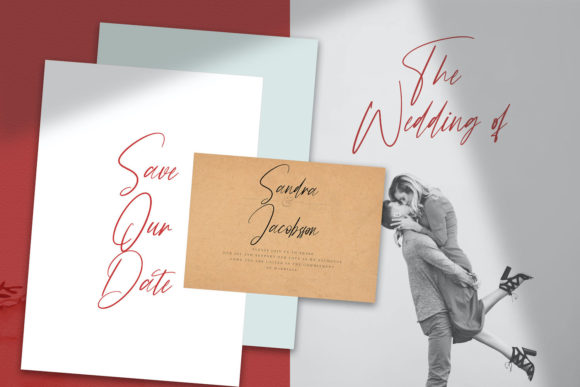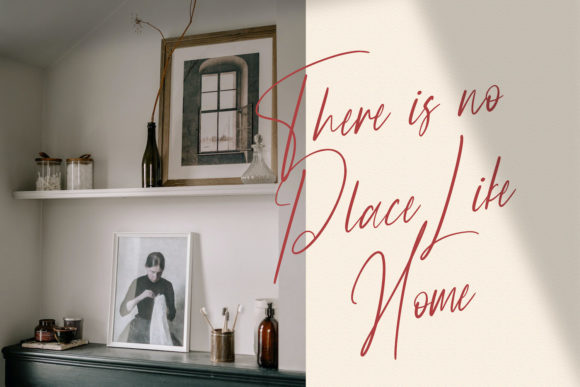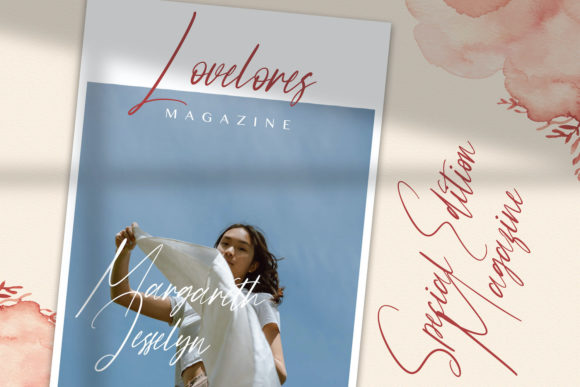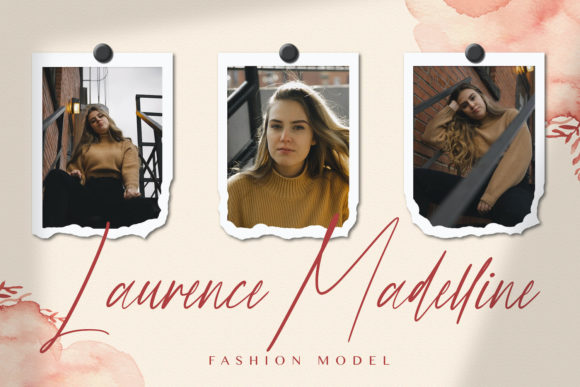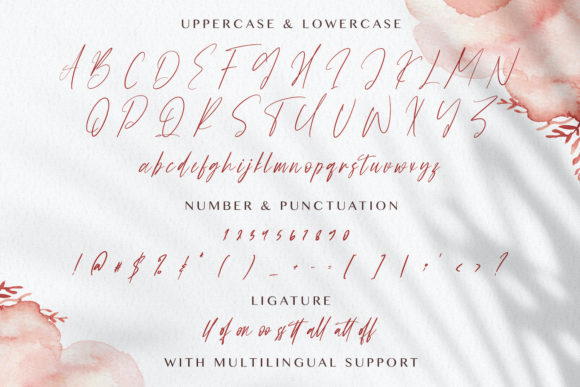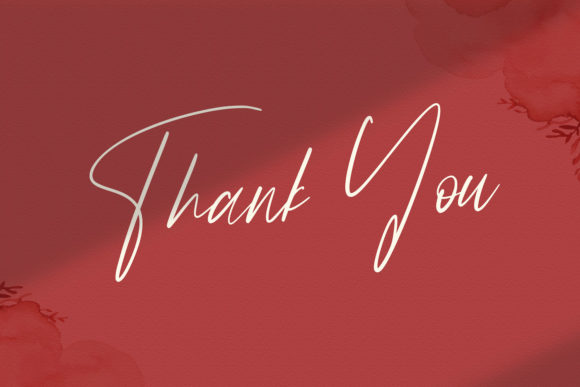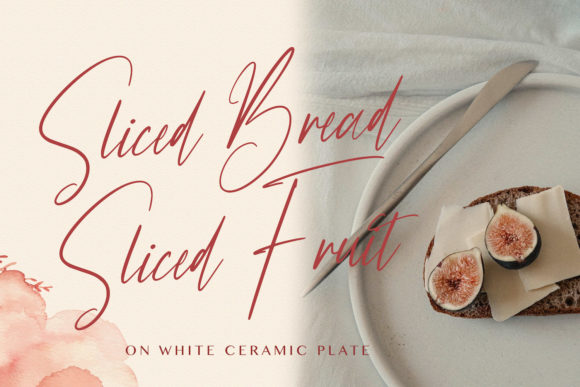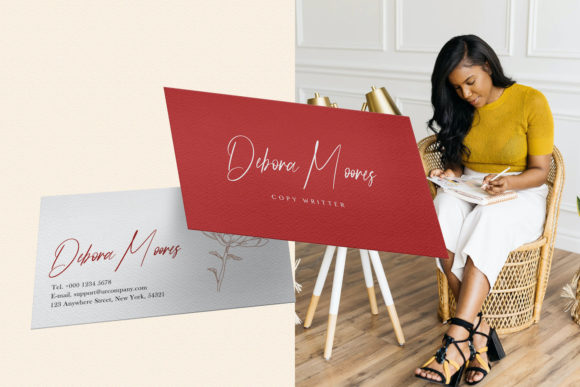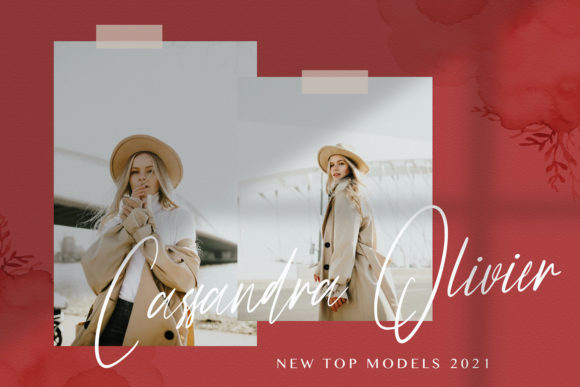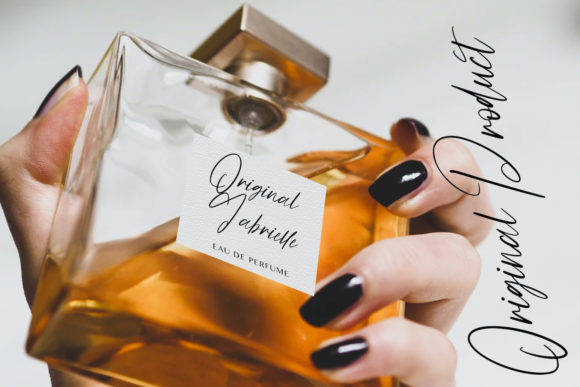
Orang Indonesia Font
About Orang Indonesia Font
Orang Indonesia is a stunning script font that effortlessly combines a thin, delicate, and fashionable aesthetic. With its clean lines and graceful letterforms, this font exudes a sense of elegance and sophistication. Whether you’re working on branding, invitations, packaging, or any other design project, Orang Indonesia will add a touch of luxury and style.
The thin lettering of Orang Indonesia adds an air of delicacy and refinement to your designs. The slender strokes and fine details make this font perfect for creating a high-end and fashionable look. It lends a sense of modernity and trendiness to any project, making it suitable for a wide range of design applications.
Each character of Orang Indonesia is meticulously crafted to ensure precision and attention to detail. The neatly designed letters create a harmonious and visually pleasing composition. The font’s high level of detail adds to its overall appeal, making it stand out and catch the eye.
Orang Indonesia font’s luxury spark comes from its combination of thin lettering, delicate curves, and fashionable style. It exudes a sense of sophistication and elegance, making it a perfect choice for projects that require a refined and upscale look. The font’s attention to detail and meticulous craftsmanship make it a versatile and impactful choice.
Fall in love with Orang Indonesia’s sleek and fashionable style, as it allows you to create stunning designs with ease. Whether used for logos, headlines, or other typographic elements, this font will make a bold statement and elevate the visual impact of your designs.
With Orang Indonesia, you can infuse your design projects with a touch of luxury and sophistication. Its thin lettering and delicate curves add a sense of refinement, making it a standout choice for creating elegant and fashionable designs. Let Orang Indonesia inspire you to create remarkable projects that captivate your audience and leave a lasting impression.
In summary, Orang Indonesia is a thin lettered, delicate, and fashionable script font that adds a luxury spark to your design projects. Its clean lines, attention to detail, and refined style make it a versatile choice for various applications. Fall in love with Orang Indonesia and let its elegance and sophistication elevate your designs to new heights.